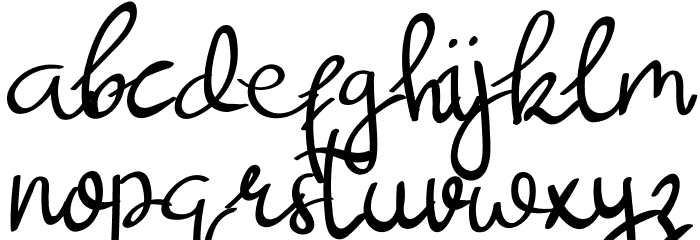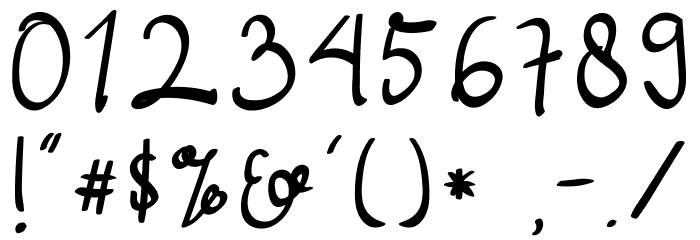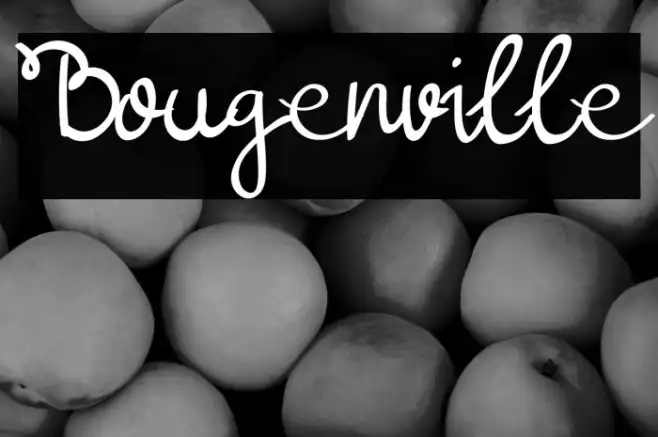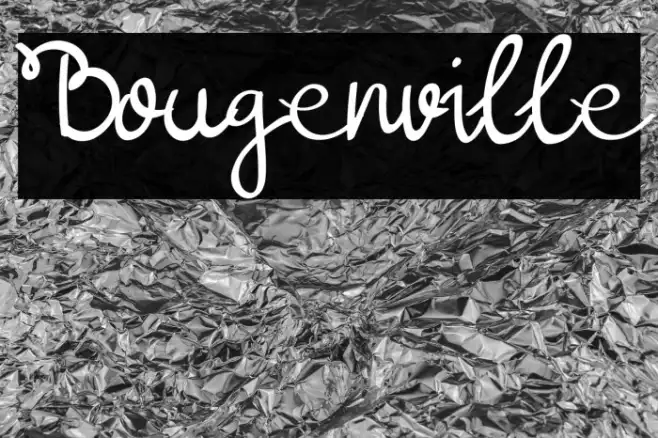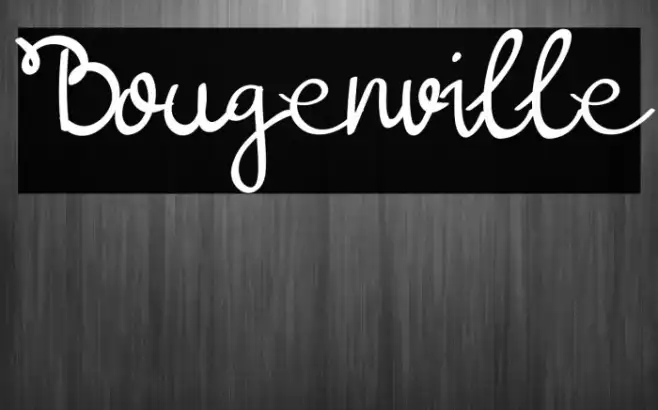
Bougenville Font
This font exudes a playful and whimsical charm, characterized by its fluid, cursive strokes that mimic the natural flow of handwriting. The letters are interconnected with smooth, looping lines, giving it an organic and lively appearance. The uppercase letters maintain a consistent height, while the lowercase letters vary in size, adding to the font's dynamic feel. The numerals and special characters are crafted with the same flowing style, ensuring a cohesive look throughout. This font is perfect for projects that require a personal touch, such as invitations, greeting cards, or branding materials that aim to convey warmth and approachability.
A playful, cursive font with fluid, interconnected strokes and a whimsical charm.
- Proposed Projects: Ideal for invitations, greeting cards, personal branding, and creative projects requiring a personal touch.
- Overall Style: Whimsical
- Use Case: Logos, Invitations, Greeting Cards